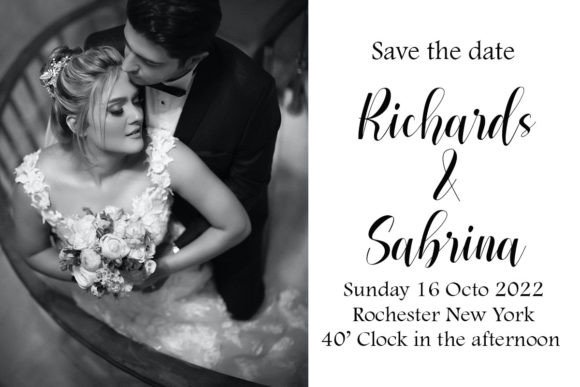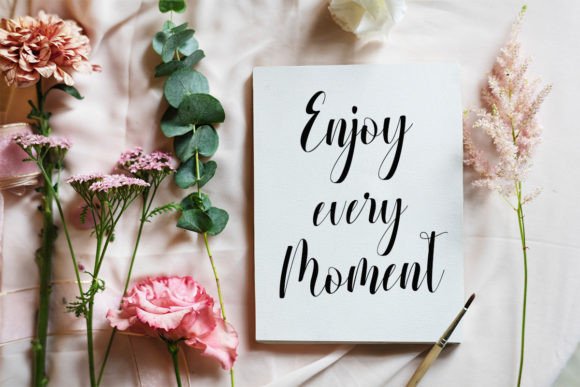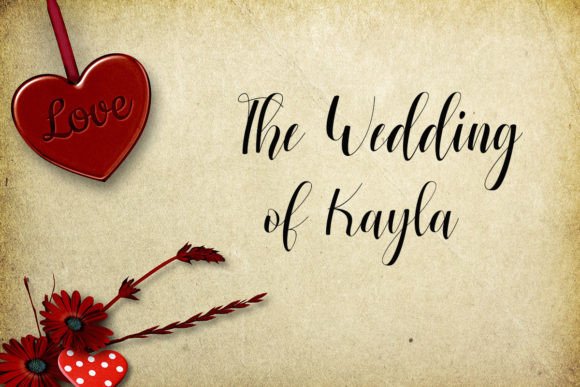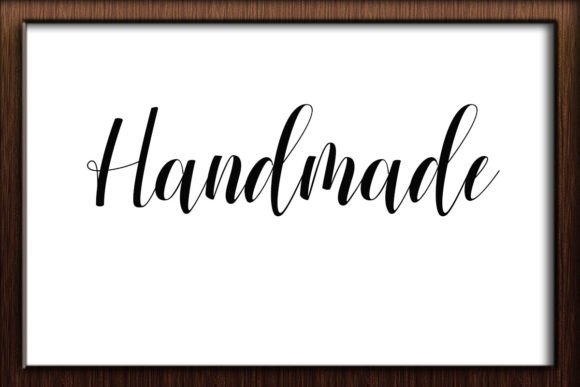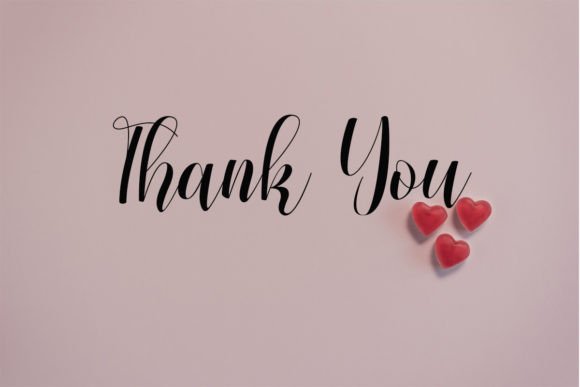
Introduction to Lauren Duncan Font
Lauren Duncan is a sweet and beautiful handwritten font.
Featuring characters that dance along the baseline, this font will add a luxury spark to any design project you wish to create Lauren Duncan is PUA encoded, which means you can access all of the glyphs and swashes with ease.
Key Features of Lauren Duncan Font